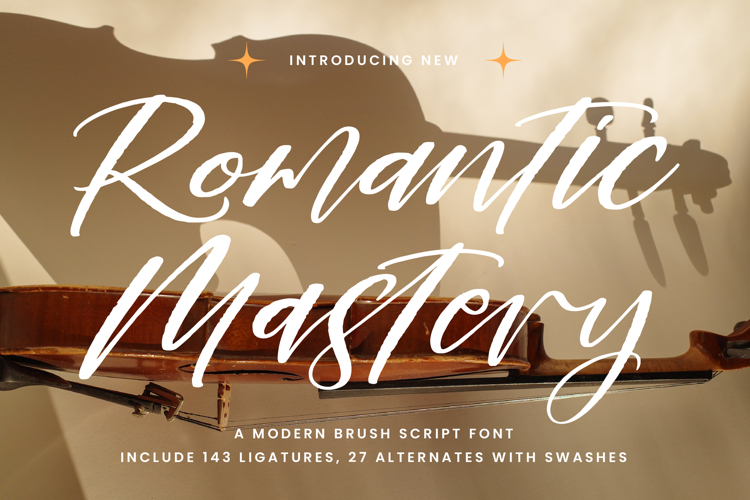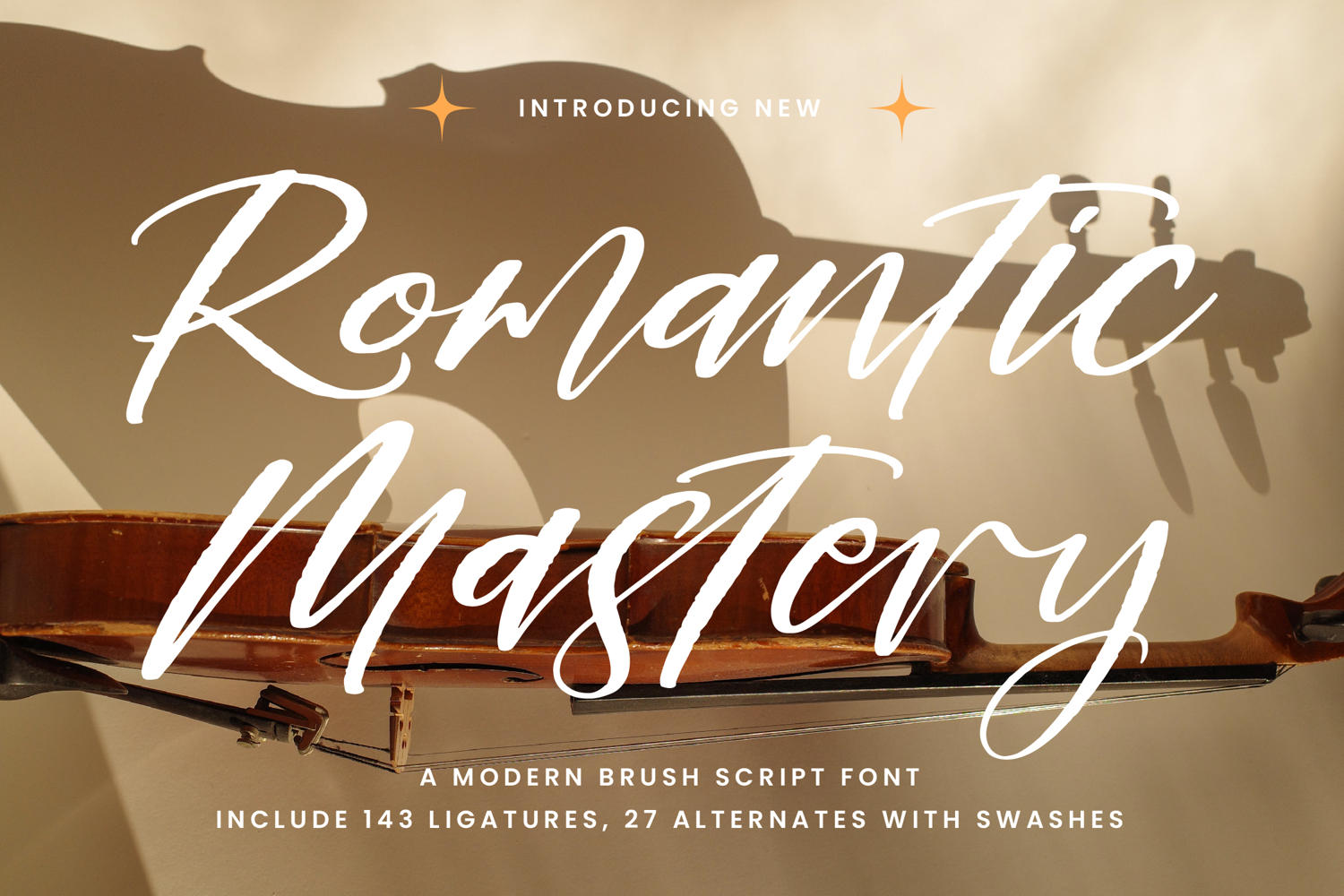
Romantic Mastery - Modern Brush Script Font
Elevate your design projects with unparalleled elegance. Introducing Font Romantic Mastery - Modern Brush Script Font , a captivating typeface embodying a fluid, artistic aesthetic. Its beautifully crafted strokes and authentic brush texture infuse every word with modern romance and sophisticated charm. This script font commands attention, offering a perfect blend of handcrafted warmth and contemporary flair, making it an instant classic for discerning creatives.
Unleash creative possibilities with exceptional typographic richness. Font Romantic Mastery - Modern Brush Script Font provides extensive features to truly customize your output. With an impressive 143 ligatures and 27 alternates with swashes, this font empowers designers to create truly unique and customized compositions. Fine-tune your headlines and branding, ensuring every design element perfectly articulates your vision.
Expand your global reach with effortless linguistic adaptability. With its extensive multilingual support, Font Romantic Mastery - Modern Brush Script Font adapts seamlessly across global markets, making it incredibly versatile for international projects. This crucial feature ensures your message resonates universally, preserving its inherent elegance and professional appeal. Enhance your market reach with this truly global typeface.